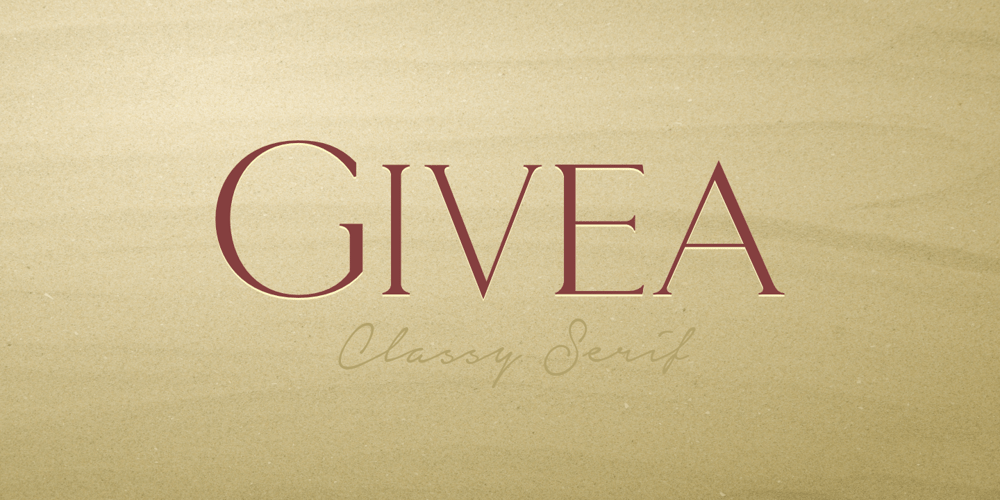
Givea Font Family was designed by Zamroni Hamzah and published by Sensatype Studio. Givea contains 1 styles and family package options. Givea – Classy Serif FontGivea is an Unique & Classy Font with modern and Classy styles. It is perfect for branding, wedding invites and cards, and maybe for some project. This is perfect for BRANDING and LOGO DESIGN. You will get classy, elegant, and certainly unique logos with this font.FEATURES :– Uppercase & Lowercase– Number & Punctuation– Multilingual Language– Opentype Features– PUA Encode